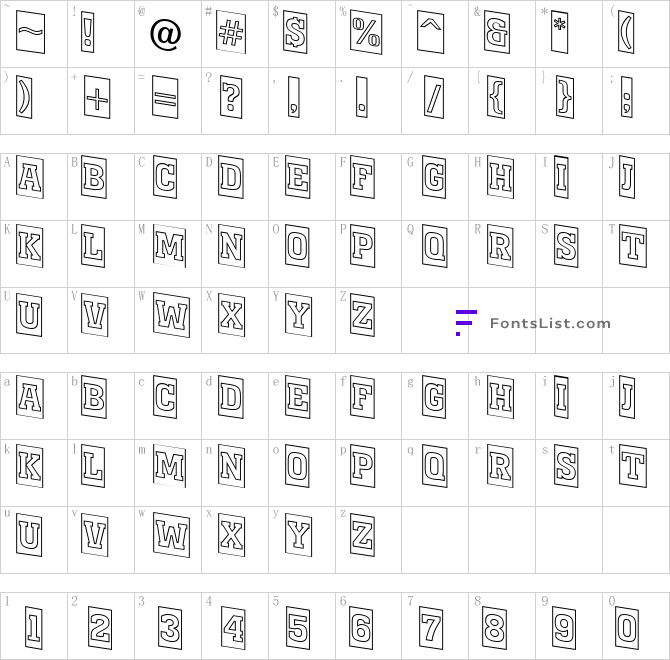
a_MonumentoTtlCmOtlDn.ttf is a very beautiful artistic font, a_MonumentoTtlCmOtlDn.ttf is widely used in the design and printing of various books and pictures,a_MonumentoTtlCmOtlDn.ttf has a strong visual impact,a_MonumentoTtlCmOtlDn.ttf is a commonly used font in newspapers, magazines and books, and is used in posters, e-commerce Poster design, store design, logo design, font design and other fields.a_MonumentoTtlCmOtlDn.